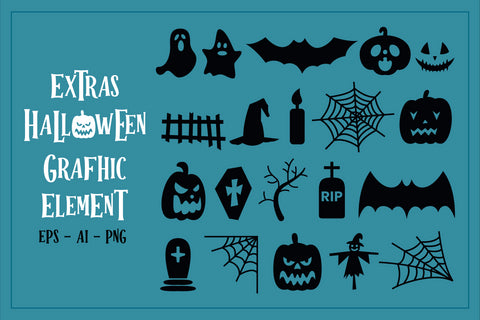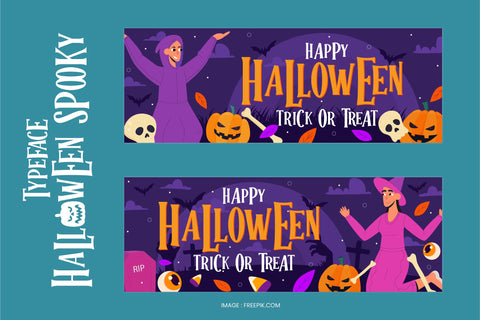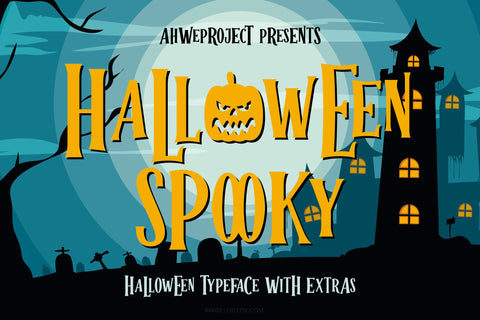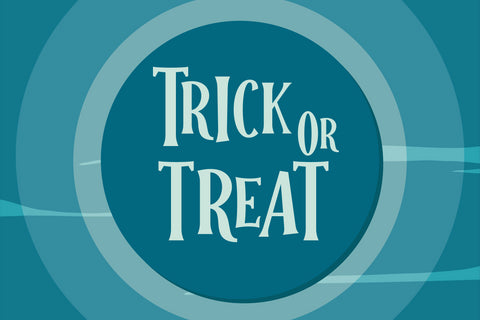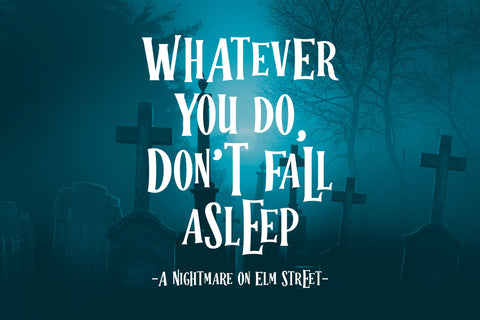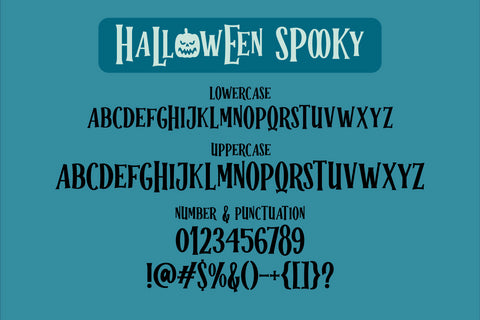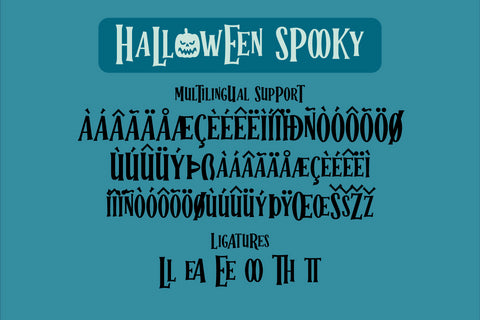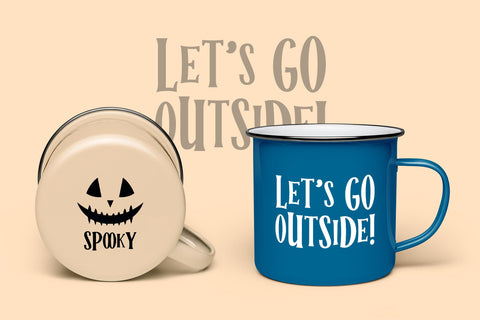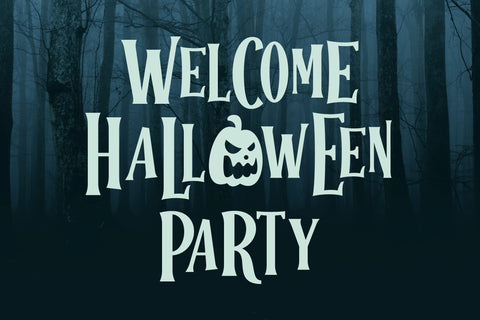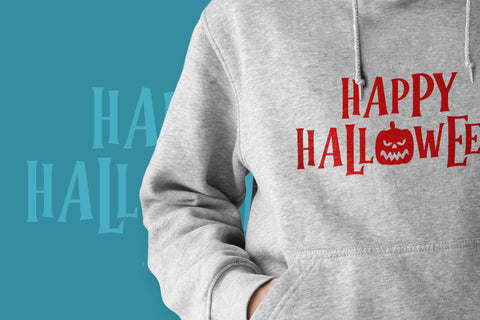
Halloween Spooky - Halloween Party Font
Halloween Spooky is a font created to complement your Halloween Party. This font has a very strong character. Add it to your Halloween crafts, horror movie posters, t-shirts, and anything else that requires a spectacular look. Masterfully designed to become a true favorite, this font has the potential to bring each of your creative ideas to the highest level!